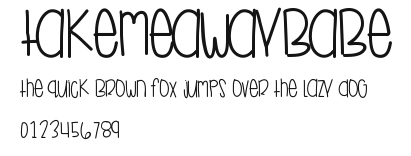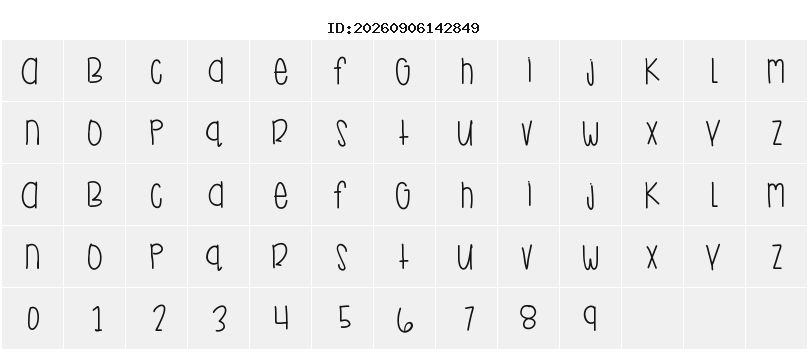
TakeMeAwayBabe Preview
About TakeMeAwayBabe.ttf
TakeMeAwayBabe.ttf is a modern, elegant sans-serif font designed for ultimate readability and visual harmony. Perfect for branding, headlines, web design, and print materials.